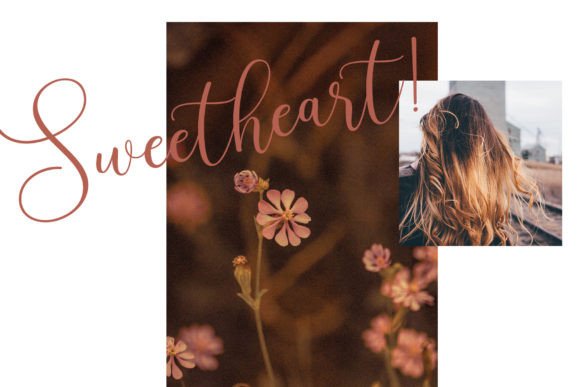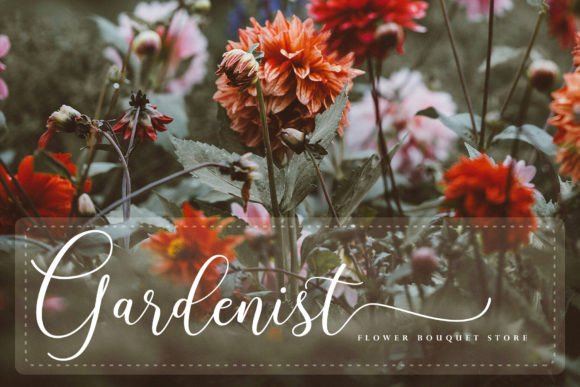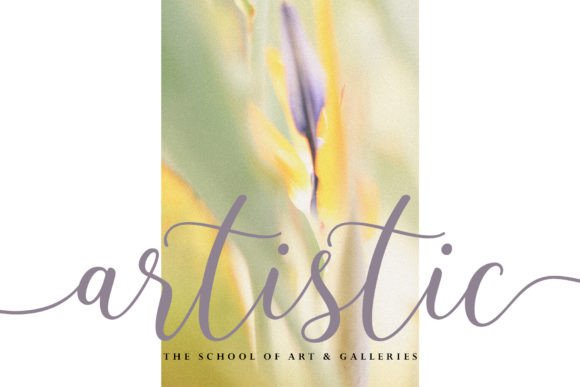
Introduction to Larisathin Font
This is a Modern Calligraphy font with an elegant, stylish, soft, and neat italic style.
With a style like this, this font will be suitable in use for logos, branding projects, homeware designs, product packaging, mugs, quotes, posters, shopping bags, logos, t-shirts, book covers, name cards, invitation cards, greeting cards, and all your other lovely projects This font is PUA encoded which means you can access all of the amazing glyphs and ligatures with ease.
Key Features of Larisathin Font